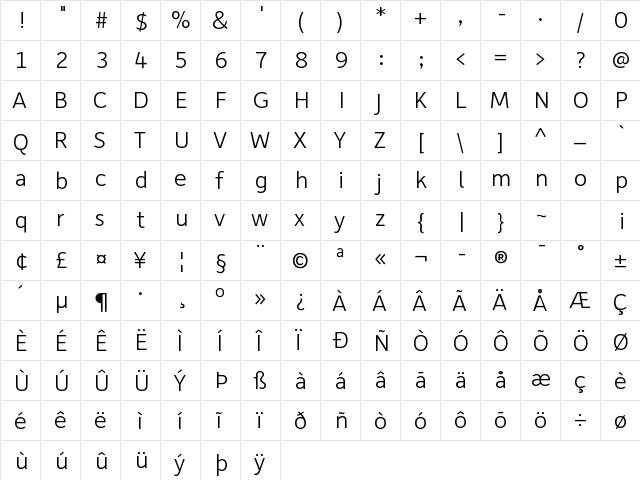
Depot Light
Design Context for Depot Typeface
Depot is a composed and adaptable typeface that performs quietly and consistently across a wide range of design contexts. Its slender proportions lend an understated elegance to any composition.
Pro Tip: Pair Depot with a font of contrasting weight or personality to build a more expressive typographic hierarchy.